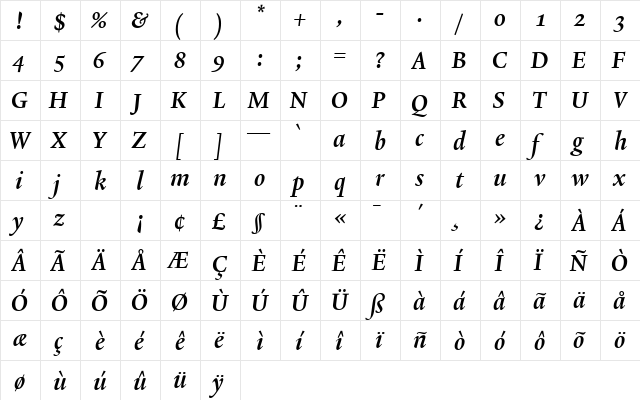
Lexicon No2 Italic C Med
Design Context for Lexicon No2 Typeface
Lexicon No2 offers clean, dependable letterforms without strong stylistic allegiance, making it a practical choice for designers who need flexibility. The dynamic lean of this cut emphasises speed and emphasis in any layout.
Pro Tip: Try Lexicon No2 for annotation and caption copy alongside an upright companion — the contrast in angle creates a dynamic but ordered typographic system.